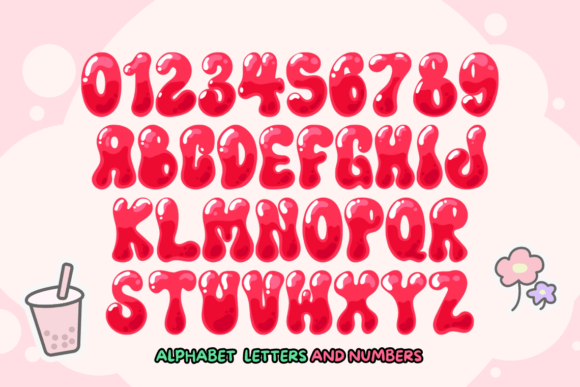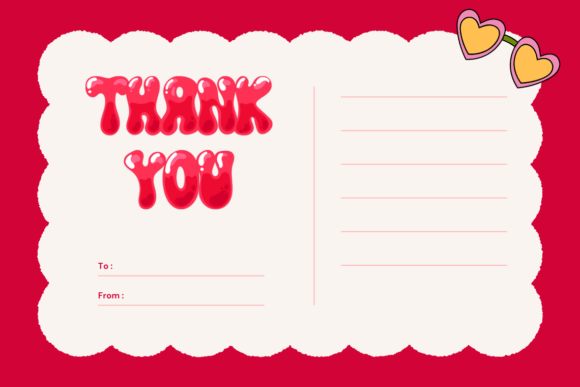
Introducing Bubble Strawberry Jelly Color Font: A Sweet Addition to Your Design Toolbox
Have you ever been working on a design project, and suddenly, you’re stuck on finding the perfect font? I recall a recent experience where I was tasked with creating a whimsical poster for a children’s event. I scoured the internet for a font that could capture the playful essence of the event, but nothing seemed quite right. That was until I stumbled upon the delightful Bubble Strawberry Jelly Color Font. This charming handwritten typeface has been a game-changer for my designs, and I’m excited to share its sweetness with you! 🍓
- Playful and whimsical design: The bubble-like letters and vibrant strawberry jelly color make it perfect for adding a fun touch to projects.
- Unique and eye-catching: Adds a distinctive charm to posters, packaging, stickers, and more.
The Story Behind Bubble Strawberry Jelly Color Font
The Bubble Strawberry Jelly Color Font was inspired by the whimsical world of childhood treats. The designer aimed to create a font that captures the playful essence of strawberry jelly candies and the fun of blowing bubbles. The result is a delightful typeface that’s sure to bring a smile to anyone’s face.
| Font Name | Bubble Strawberry Jelly Font |
| Author | VividDoodle |